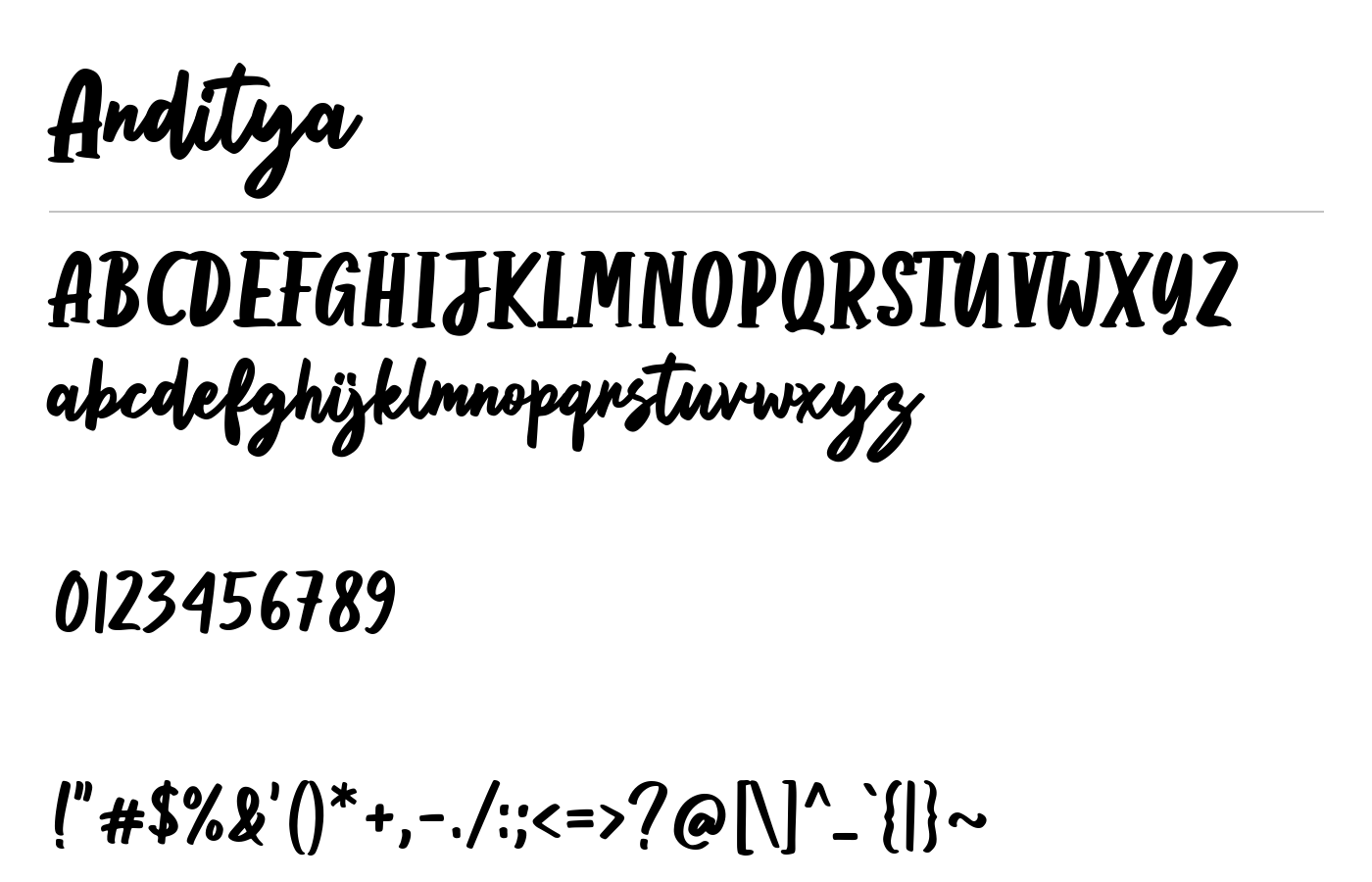
Anditya is a lively script font with a bold weight and smooth, flowing strokes that give it a friendly and energetic personality. Its natural and slightly casual feel makes it perfect for creative projects, branding, and headlines where a warm, approachable style is desired. This font works well for logos, packaging, and social media graphics seeking a dynamic yet personable touch.
Anditya Font
About Anditya Font